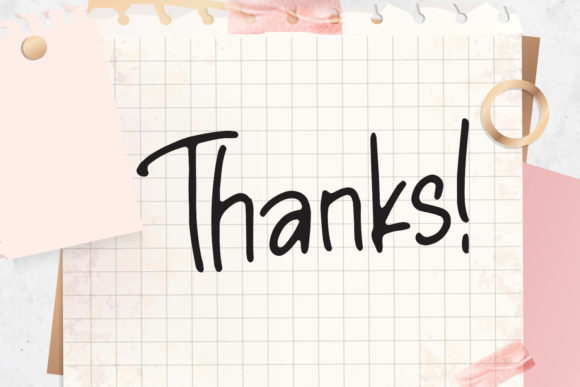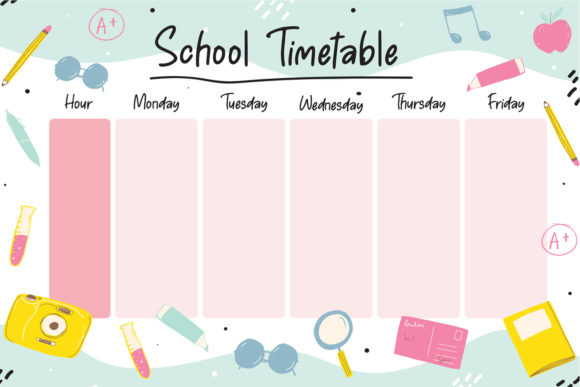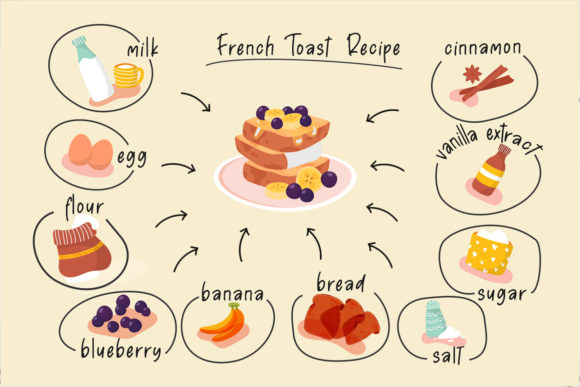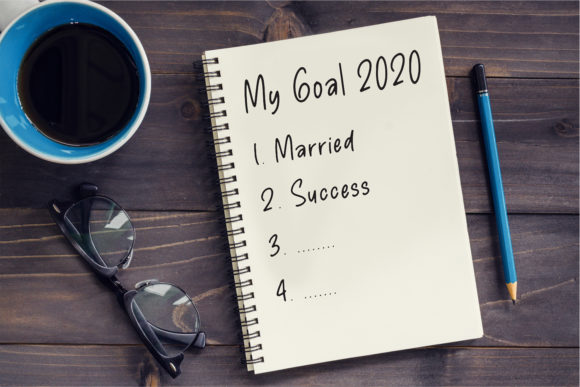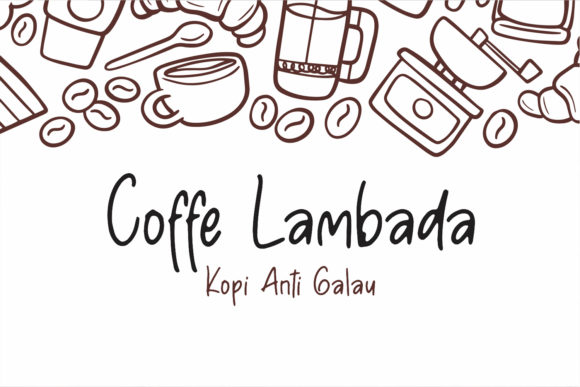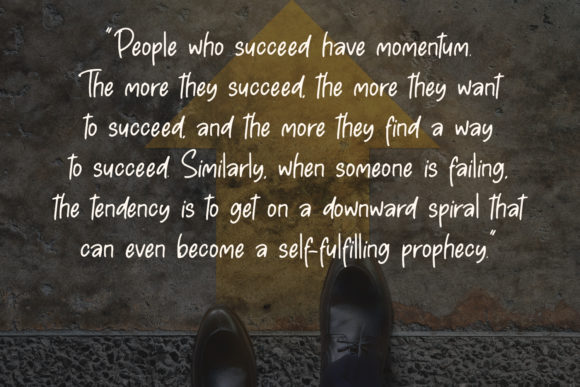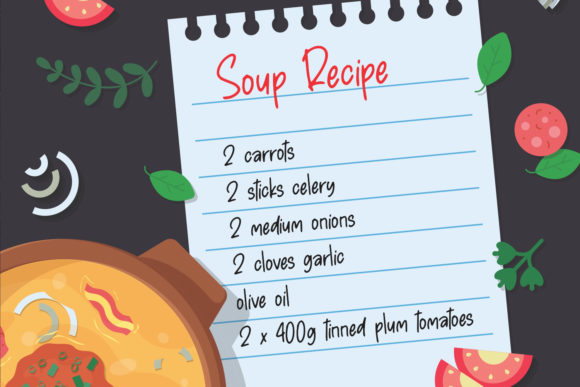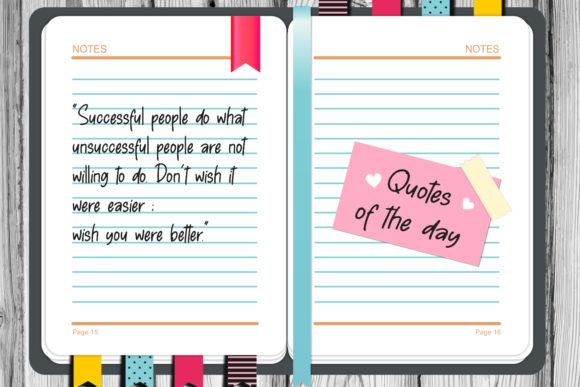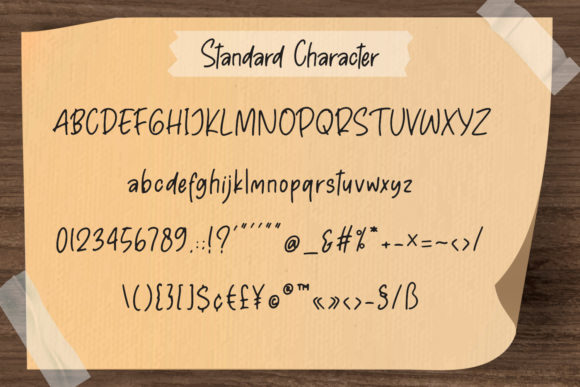
Pen Story Font
About Pen Story Font
Pen story is a cute handwriting font. Whether it’s for web, print, moving images or anything else – Pen Story will look spectacular.